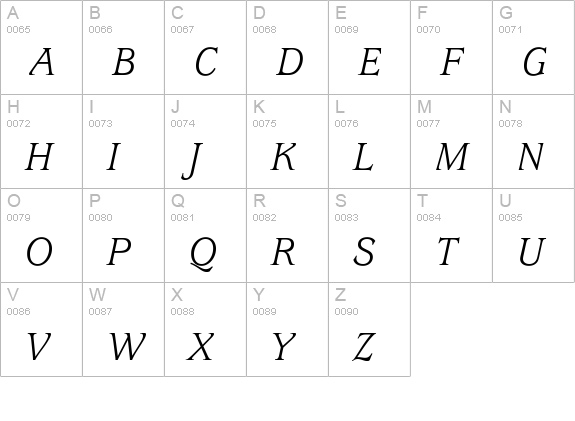
Introducing UsherwoodEF-BookItalic, a captivating and versatile font that effortlessly combines elegance with modernity. With its sleek and slender letterforms, this typeface exudes sophistication and grace, making it the perfect choice for any design project that requires a touch of finesse. UsherwoodEF-BookItalic stands out not only for its impeccable design but also for its incredible versatility. Whether you're creating a stylish logo, designing a chic invitation, or crafting a captivating brochure, this font will elevate your work to new heights, making a lasting impression on your audience. But what sets UsherwoodEF-BookItalic apart is not just its stunning aesthetics; it is also the fact that it is freely available for download at FontsMarket.com. Yes, you read that right – this exceptional font can be yours at no cost! FontsMarket.com is committed to providing high-quality fonts to designers and creatives around the world, and UsherwoodEF-BookItalic is yet another example of their dedication to excellence. As you explore the vast possibilities with UsherwoodEF-BookItalic, you'll discover its remarkable legibility, even at small sizes, ensuring that your message is conveyed with clarity and precision. The italicized variant adds a touch of dynamism and elegance, giving your designs a distinctive flair that is sure to captivate your audience. Whether you're a professional designer or a passionate hobbyist, UsherwoodEF-BookItalic is a must-have addition to your font library. Its timeless appeal and versatility make it suitable for a wide range of design projects, from branding and advertising to editorial and web design. So why wait? Unlock the full potential of your creative endeavors with UsherwoodEF-BookItalic. Visit FontsMarket.com today and download this exceptional font for free. Elevate your designs, leave a lasting impression, and unleash your creativity with UsherwoodEF-BookItalic – the font that effortlessly combines style, elegance, and the freedom to create.